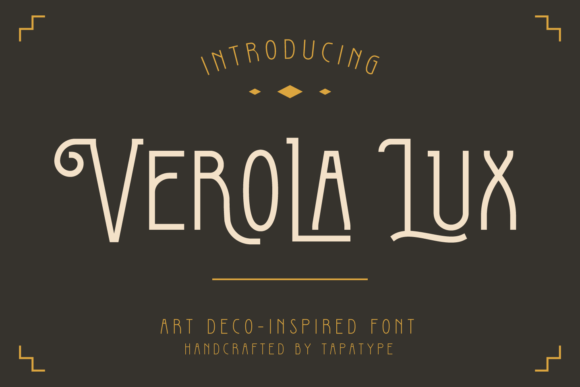
Welcome to the realm of Verola Lux, a font family of timeless elegance and refined beauty. Inspired by the grandeur of Art Deco and the graceful curves of Art Nouveau, Verola Lux is a classic sans serif font that exudes sophistication and charm.
Step into a world where vintage aesthetics meet modern sensibilities, where each letterform is meticulously crafted to evoke a sense of nostalgia and authenticity. Whether you're a designer seeking to capture the essence of a bygone era or a creative soul yearning for a touch of timeless elegance, Verola Lux will be your guiding light.
Immerse yourself in the versatile world of Verola Lux, where the possibilities are endless. Its wide range of weights, from delicate hairlines to bold statements, ensures that you'll find the perfect fit for any project. Whether you're designing a stunning poster, a captivating headline, or an eye-catching packaging, Verola Lux will elevate your designs to new heights.
Let your creativity soar as you explore the treasure trove of stylistic alternates that Verola Lux has to offer. Experiment with playful swashes, delicate ligatures, and charming ornaments to add a touch of individuality and flair to your designs. Verola Lux is a font that invites you to play, to experiment, and to create something truly unique.
Unleash the power of Verola Lux and watch your designs transform into captivating masterpieces. Its vintage charm will infuse your work with a sense of nostalgia and authenticity, while its modern sensibilities ensure that your designs remain relevant and captivating. Join the ranks of discerning designers who have chosen Verola Lux as their font of choice, and embark on a creative journey like no other.